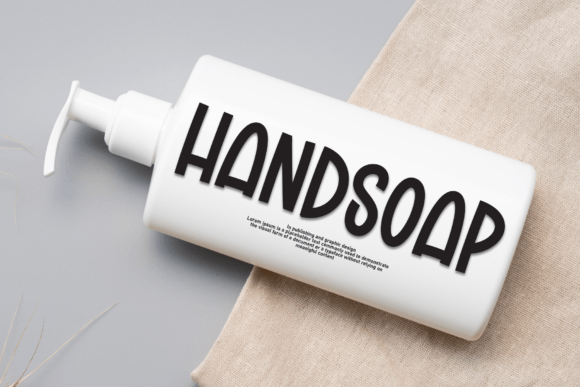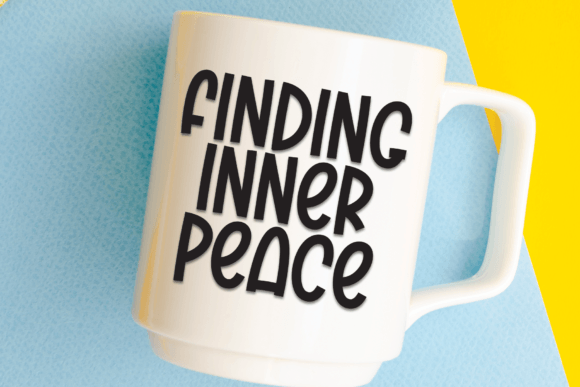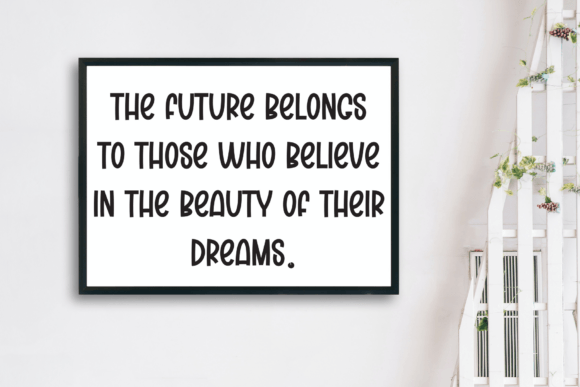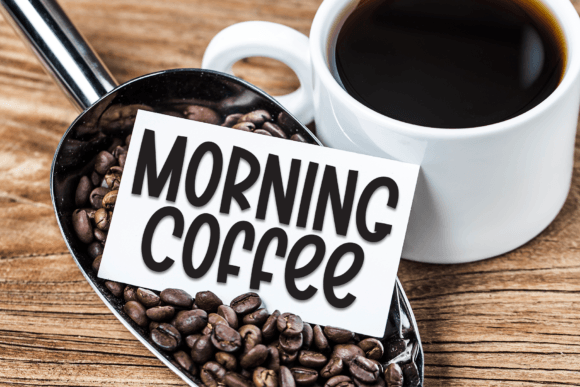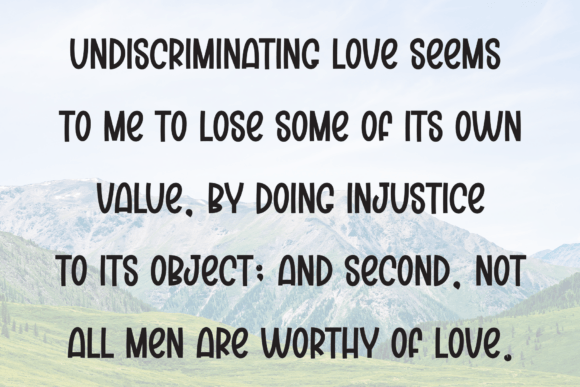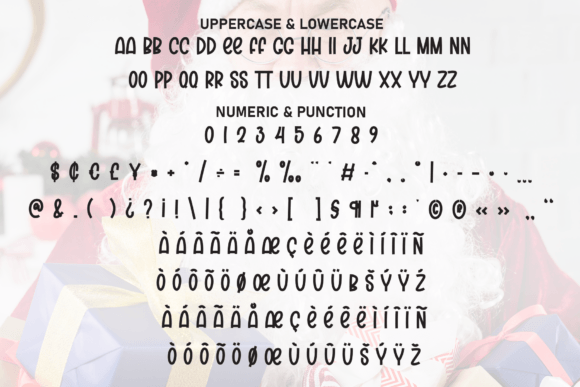
Introduction to Santa Charming Font
As designers, we’ve all been there – staring at a blank canvas, struggling to find the perfect font to bring our creative project to life. It’s like searching for a missing piece of a puzzle, and suddenly, everything clicks. For me, that moment came when I stumbled upon the enchanting Santa Charming Font. Its unique blend of elegance and playfulness instantly captivated me, and I knew I had to share it with fellow designers.
With its warm, handwritten style, the Santa Charming Font is the perfect design resource for any creative endeavor. Whether you’re crafting a heartfelt card, designing a wedding invitation, or simply adding a dash of whimsy to your latest project, this font is sure to bring a smile to your face and a touch of magic to your design.
Key Features of Santa Charming Font
- High-quality, elegant font perfect for creative projects and designs
- Unique, charming characters with a touch of holiday magic, ideal for Christmas and winter-themed designs
Honest Review: Santa Charming Font
I recently had the chance to work with the Santa Charming Font, and I must say it’s been a delightful experience. This charming font is perfect for those looking to add a touch of holiday magic to their creative projects.
- What works well: ✨ The font’s unique design makes it stand out from other fonts, and its high quality makes it perfect for both digital and print projects. I particularly enjoyed using it for a design project that required a transparent background, and it looked stunning.
- What works well: ✨ The font is also incredibly versatile and can be used in a variety of contexts, from children’s book covers to wedding invitations.
However, there are a few limitations to keep in mind. ⚠️ The font is only available for free download, which means it’s not ideal for commercial projects that require a premium font. Additionally, the font’s design can be a bit overwhelming for small text sizes, so be sure to use it sparingly.
Overall, I was thoroughly impressed with the Santa Charming Font. Its unique design and high quality make it a valuable design resource for anyone looking to add a touch of whimsy to their creative projects.
The Santa Charming Font is a unique and creative design resource perfect for adding a touch of holiday cheer to your projects. With its transparent background and high-quality design, it’s an ideal choice for any creative project.
Tips for Getting the Most Out of Santa Charming Font
To get the most out of the Santa Charming Font, try using it in combination with other festive design elements, such as holly or snowflakes. You can also experiment with different font sizes and colors to create a unique look.
The Santa Charming Font is perfect for a variety of projects, including:
- Christmas card designs
- Holiday party invitations
- Festive social media posts
Is Santa Charming Font a high-quality design resource?
Yes, Santa Charming Font is a high-quality design resource, carefully crafted to provide a unique and charming aesthetic for your creative project. The font is designed to be versatile and easy to use, making it an excellent choice for designers who want to add a touch of elegance to their work.